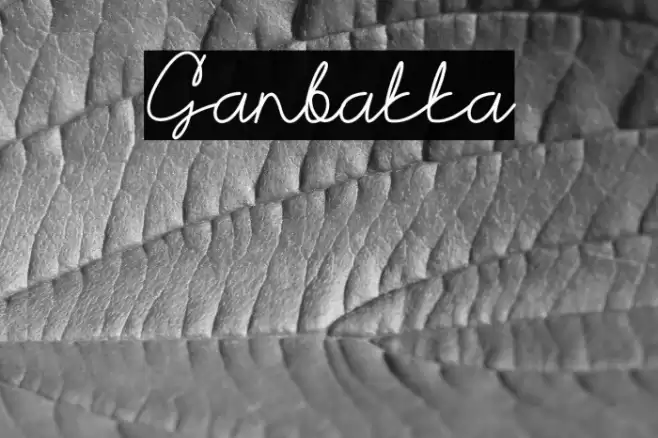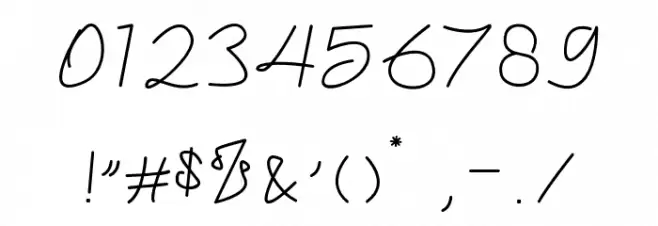
Ganbatta Font
Ganbatta Description
This font features a flowing, cursive style that mimics elegant handwriting. The uppercase letters are gracefully connected, while the lowercase letters maintain a consistent slant, enhancing the script's fluidity. The numerals are distinct yet harmonize with the overall script style, offering a cohesive look. Special characters are thoughtfully designed to match the font's aesthetic, ensuring versatility in various contexts. The strokes are smooth and continuous, providing a sense of motion and sophistication. This font is ideal for projects that require a personal touch, such as invitations, greeting cards, or branding materials that aim to convey elegance and warmth.
A cursive, handwritten-style font with smooth, flowing strokes from Uncategorized fonts.
- Overall Style: Elegant, Handwritten